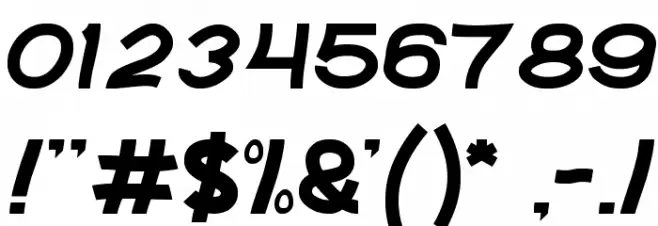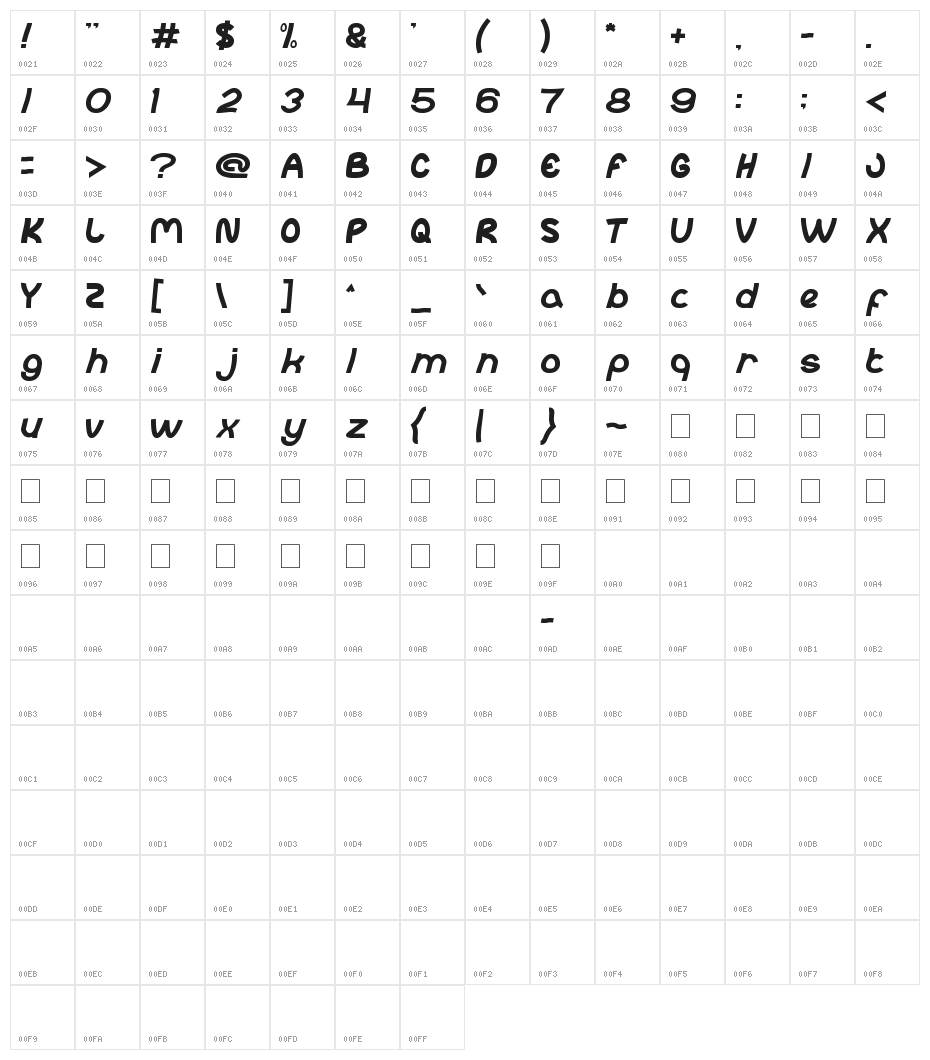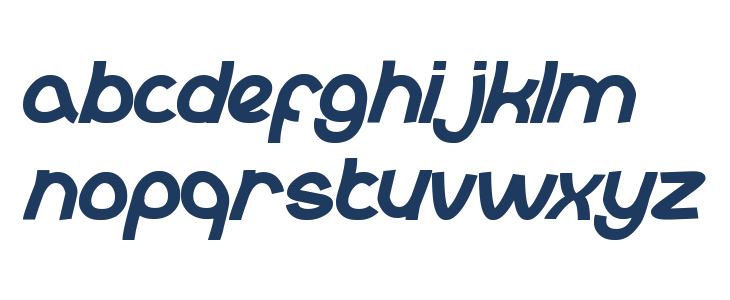
abc Font
abc Description
This font features a bold and dynamic style with a playful and modern twist. The characters are slightly slanted, giving a sense of movement and energy. The strokes are thick and consistent, providing a strong visual impact. The uppercase letters are rounded and robust, while the lowercase letters maintain a similar style with a slightly more compact form. Numbers and special characters follow the same bold and energetic design, making them stand out. This font is ideal for projects that require a lively and engaging appearance.
| Proposed Projects | Ideal for branding, advertising, posters, and any project needing a lively and engaging font. |